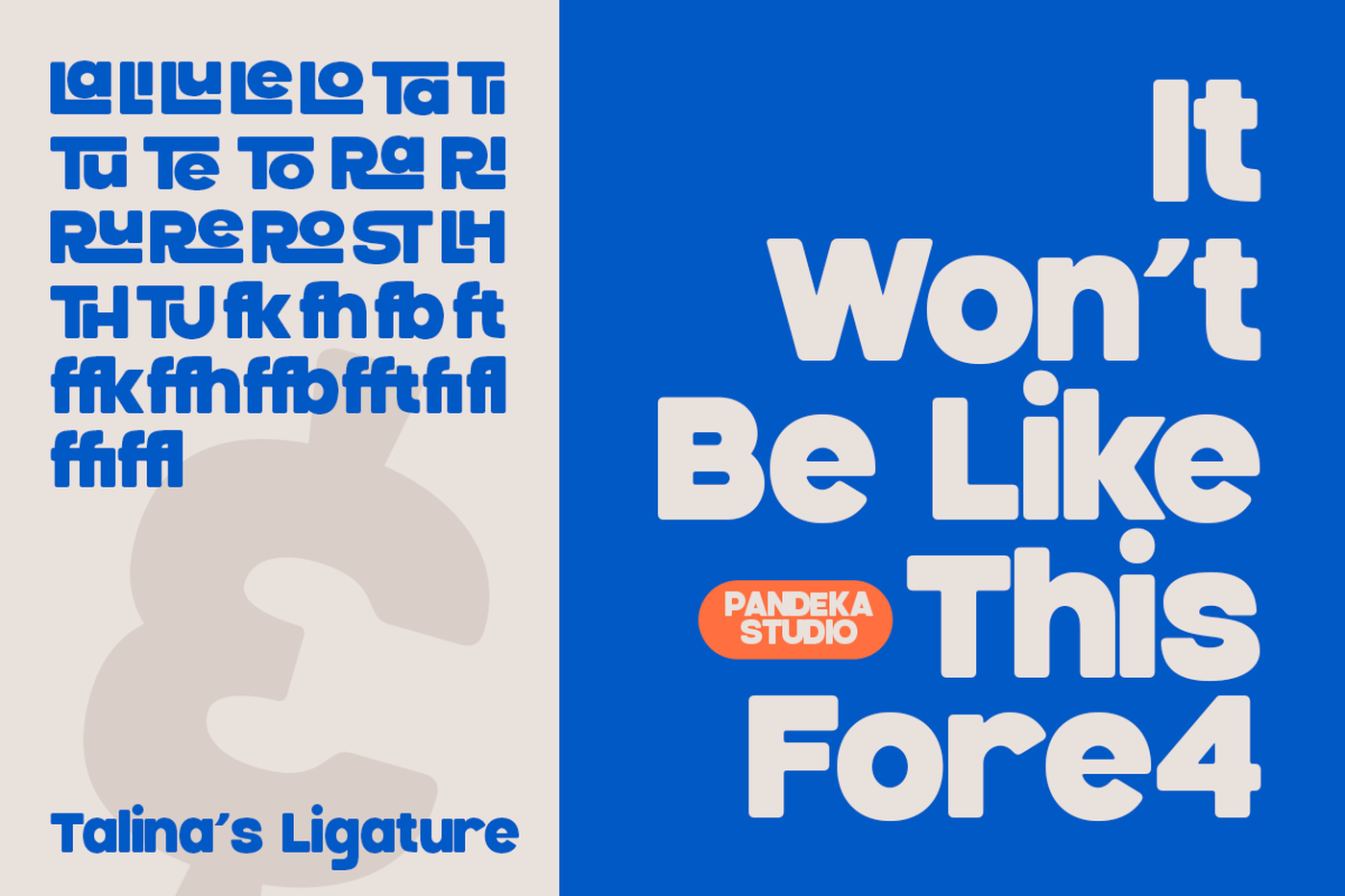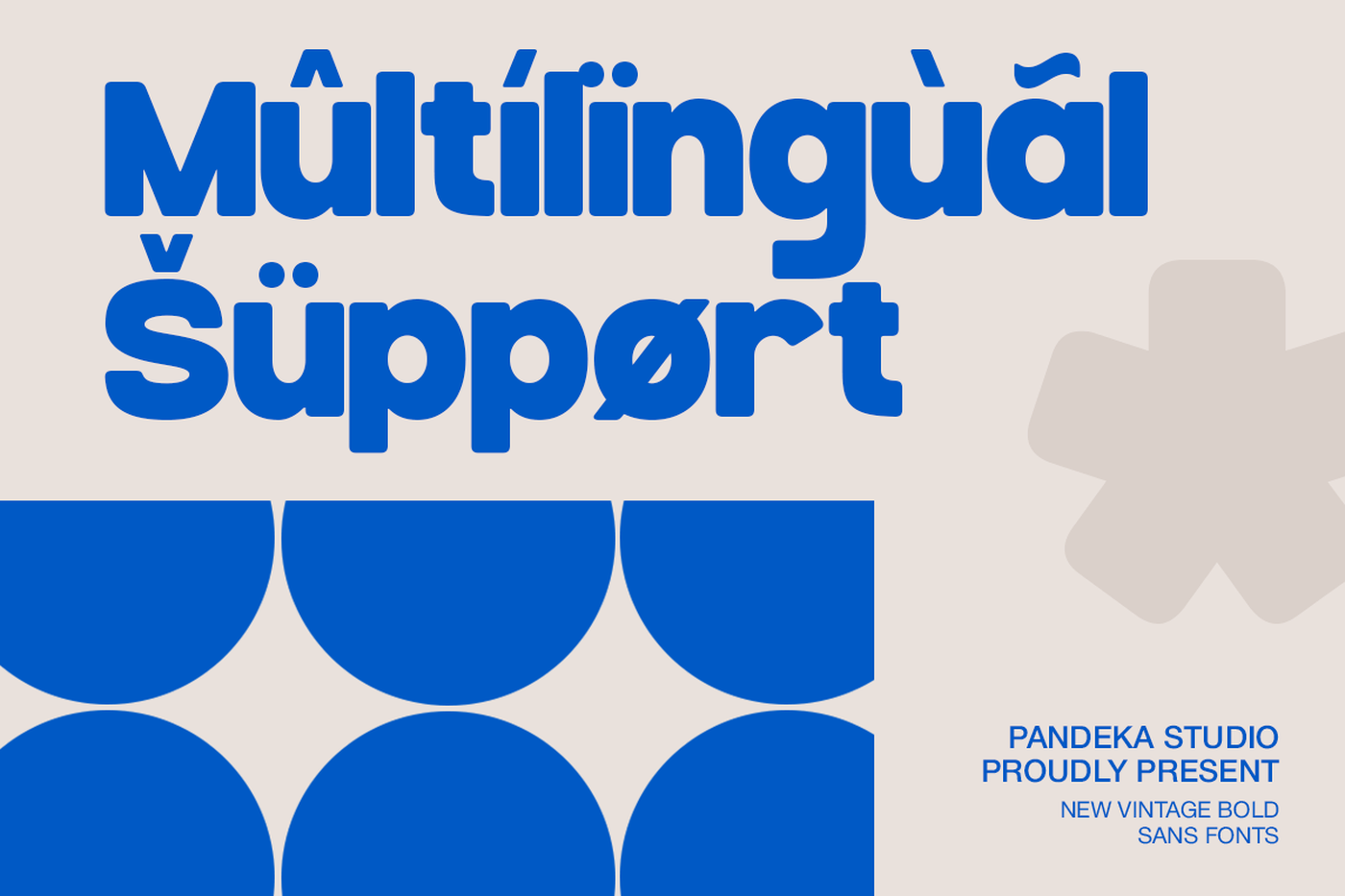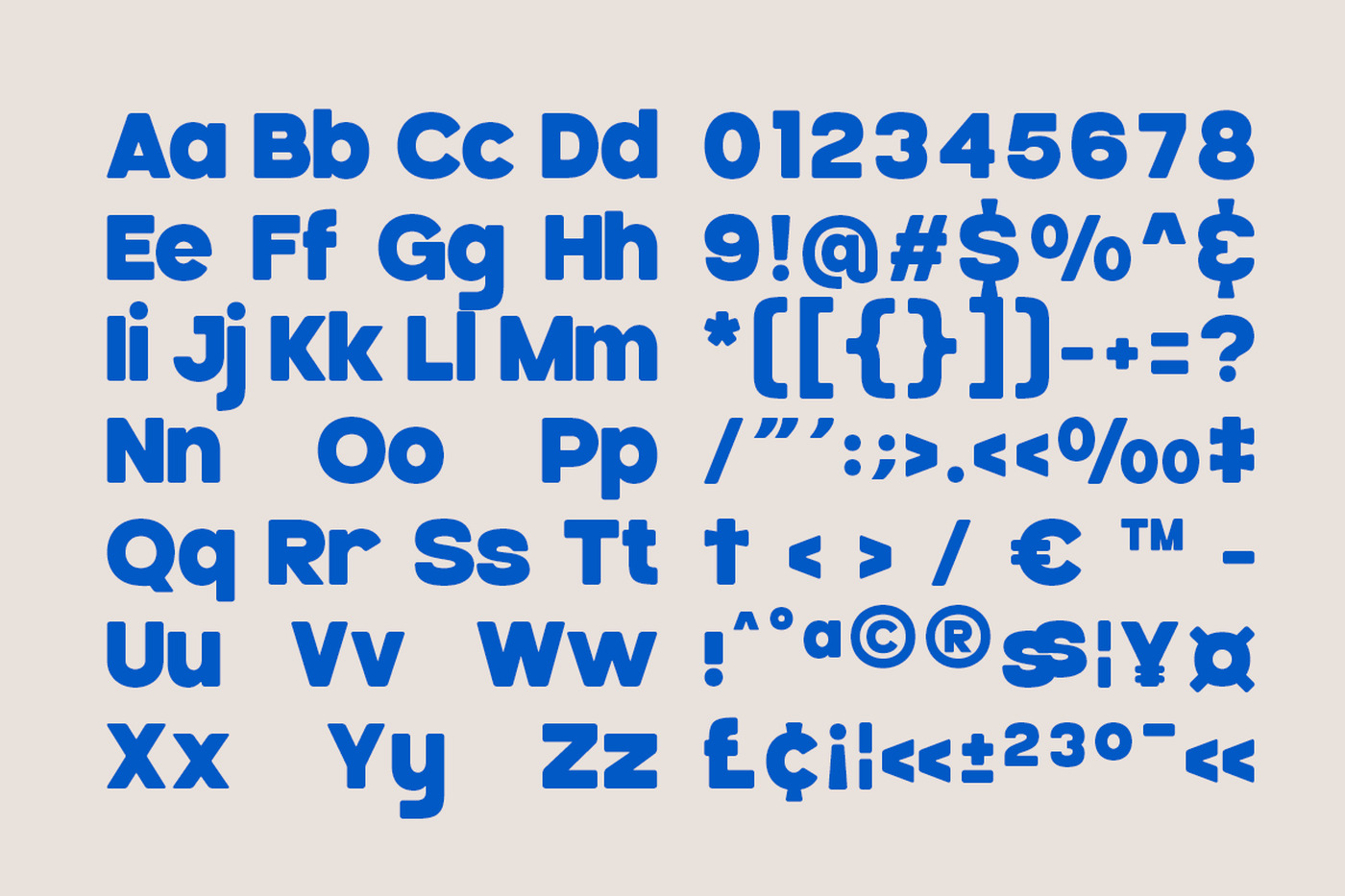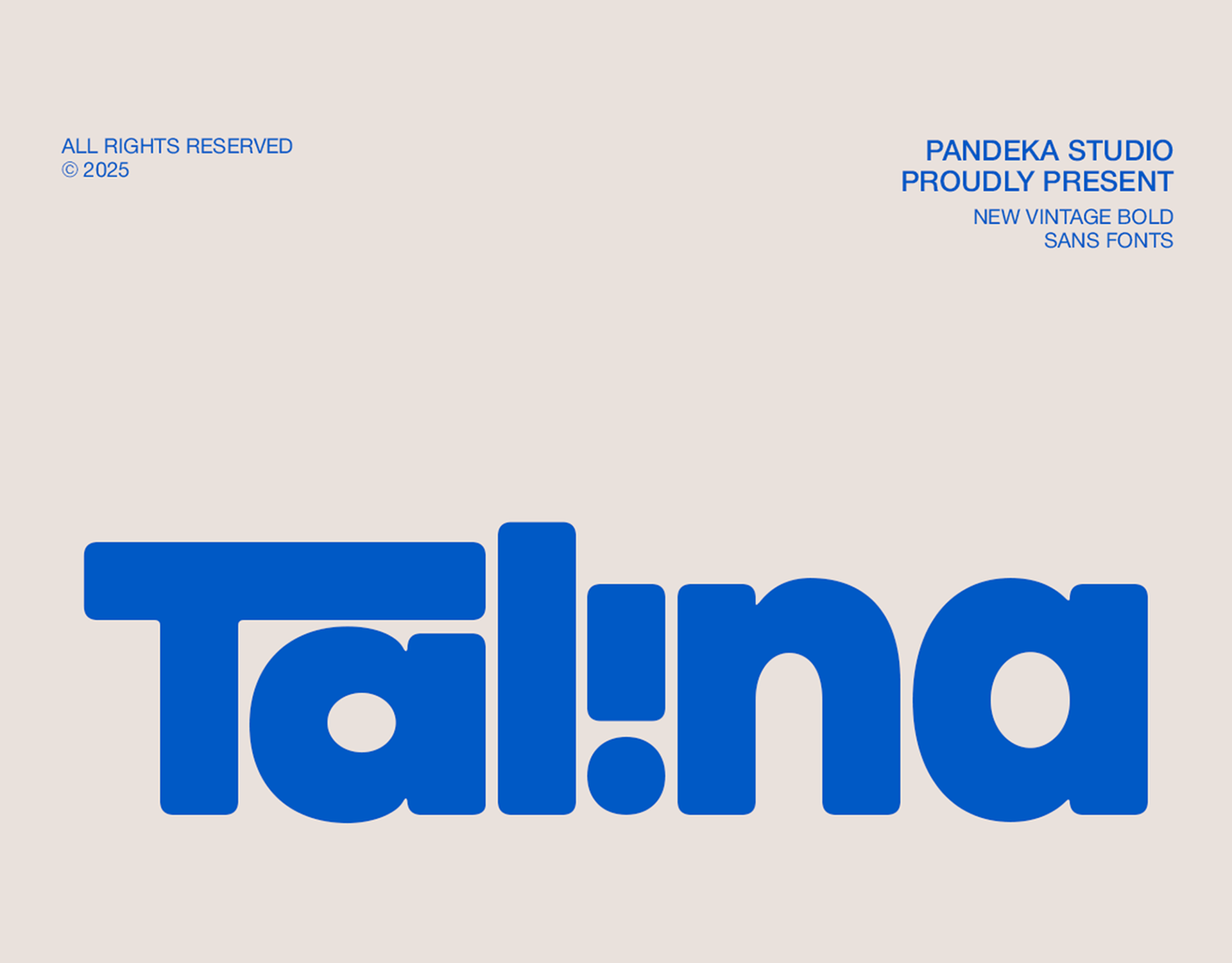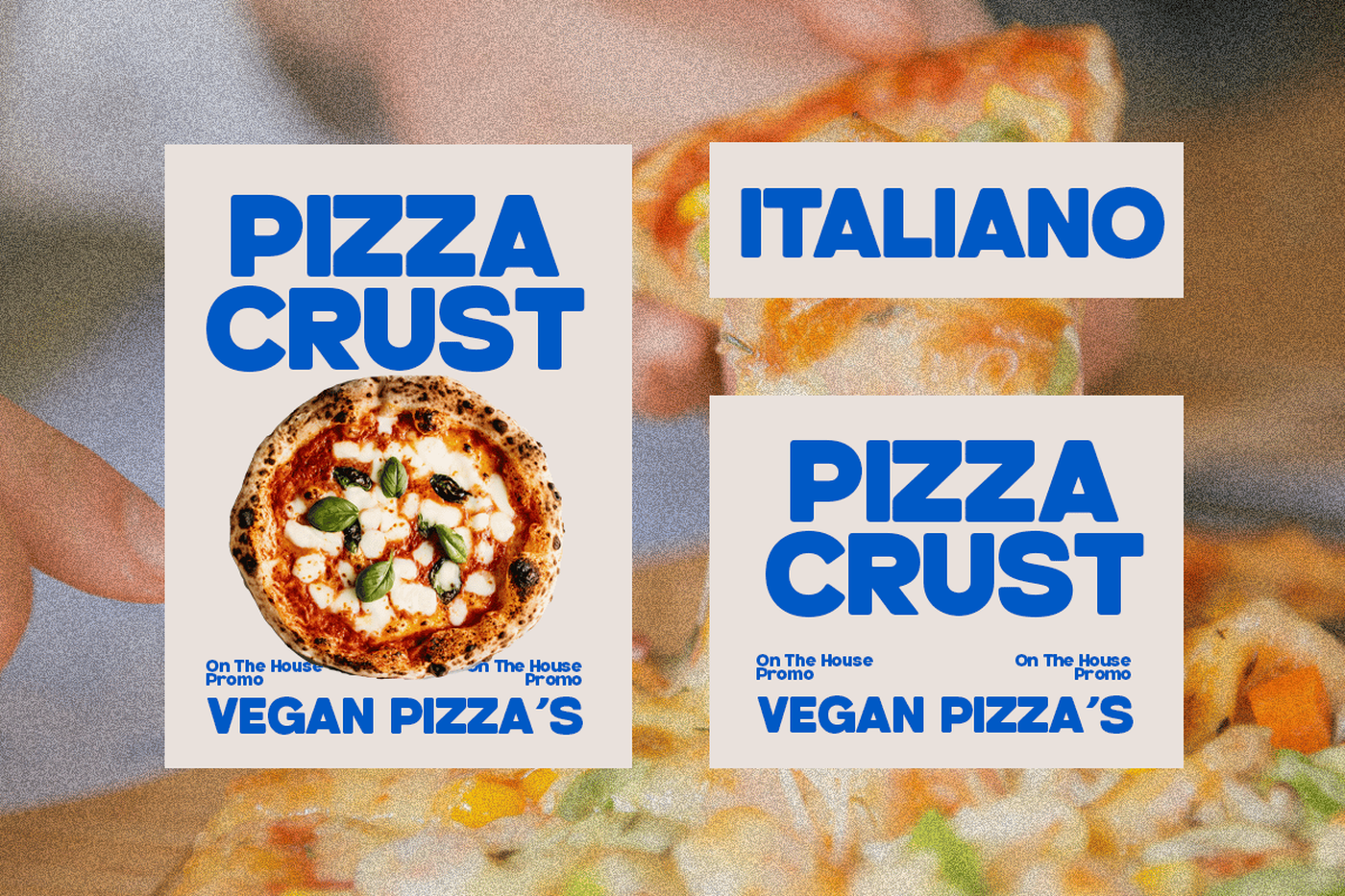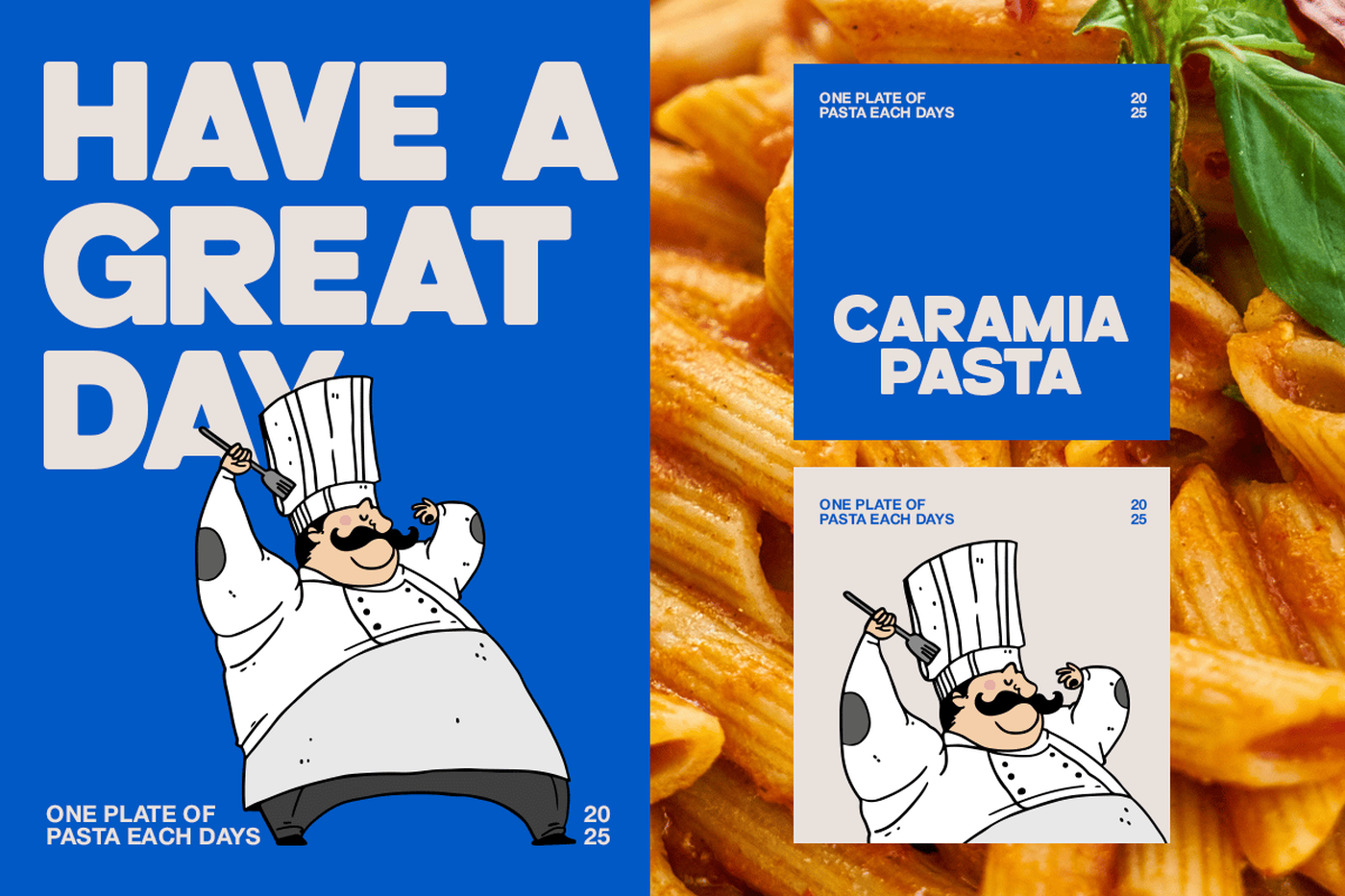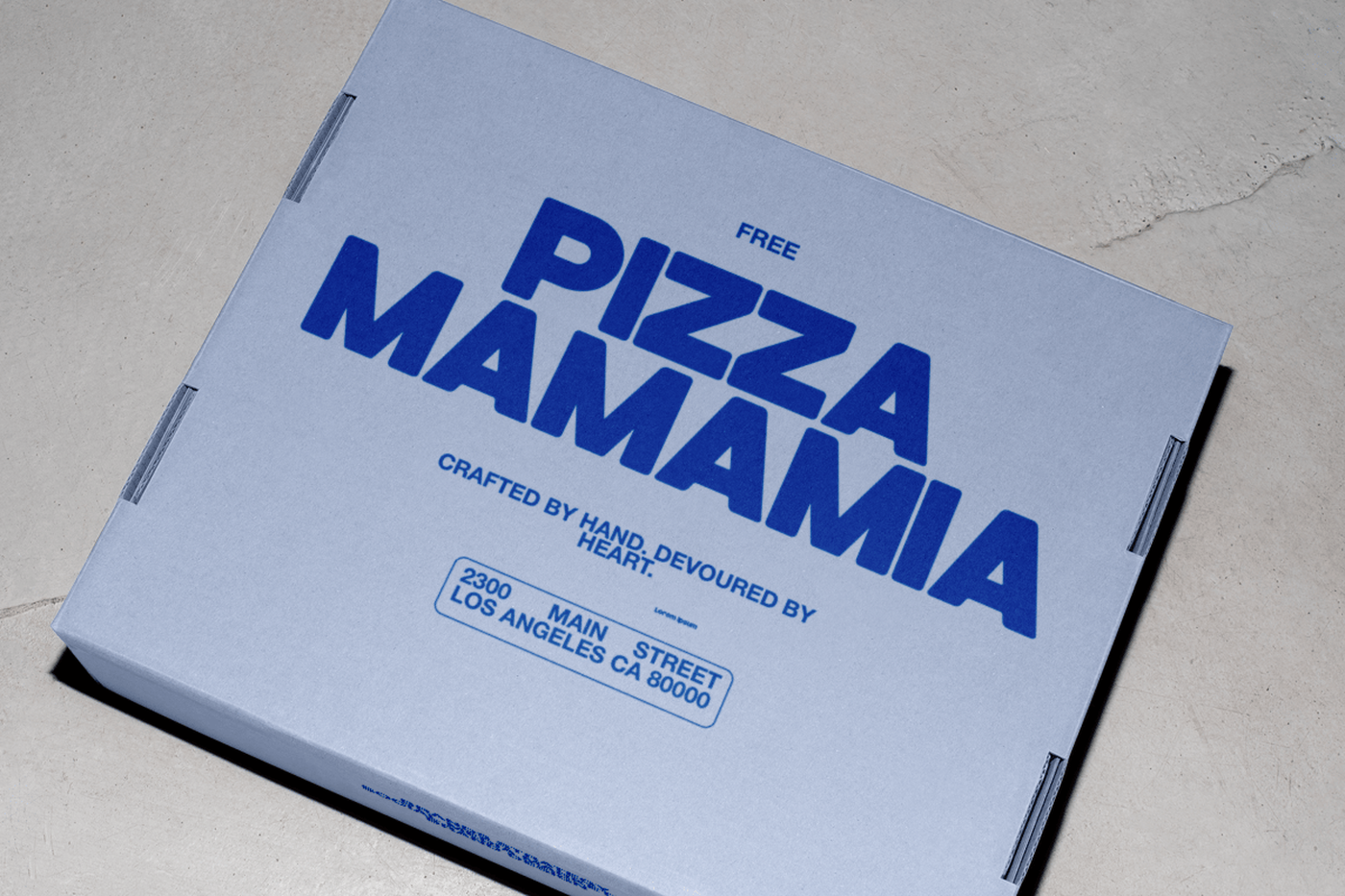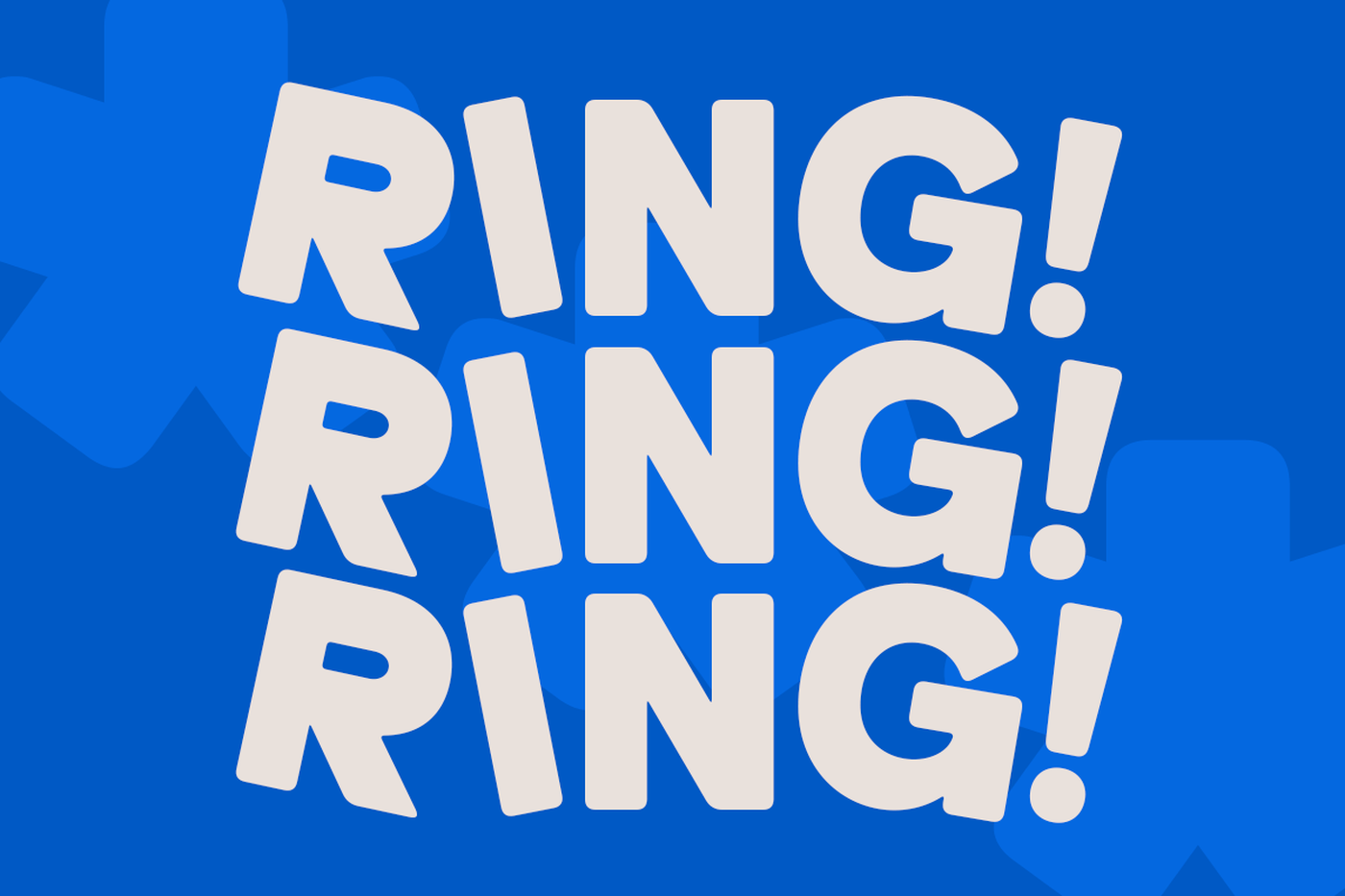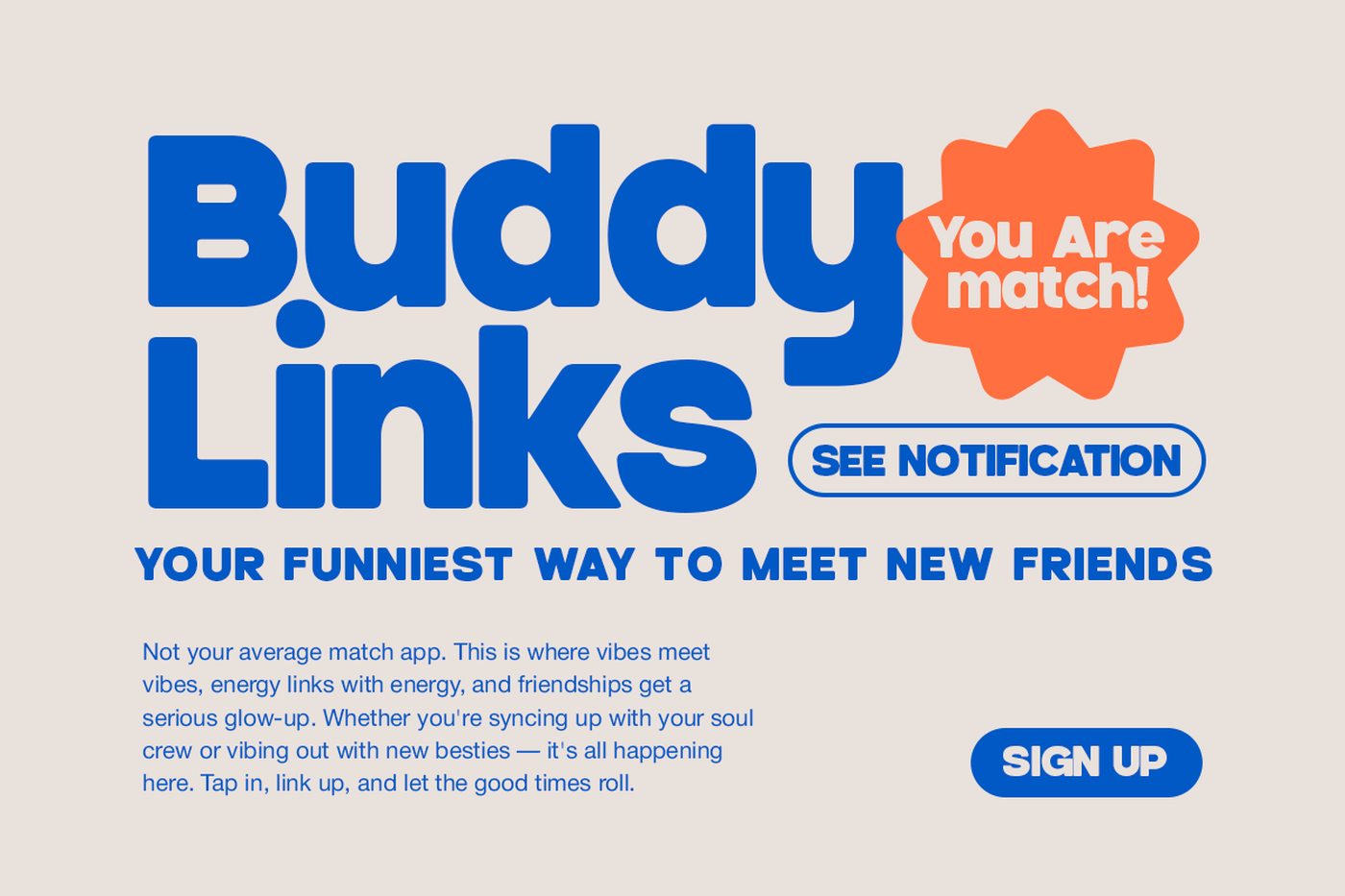
Talina - Retro Bold Sans Serif Font
Talina is a bold, rounded sans-serif typeface with a bubbly and playful personality. Designed to grab attention while remaining friendly and easy to read, Talina is perfect for branding, kids-related products, food packaging, poster headlines, and bold advertising. Talina features fun ligatures, multilingual support, punctuation, and numerals — making it both expressive and functional. Its heavy, geometric curves and consistent rhythm give it a confident look that works especially well in high-impact contexts like social media graphics, food brands, and loud typographic layouts.